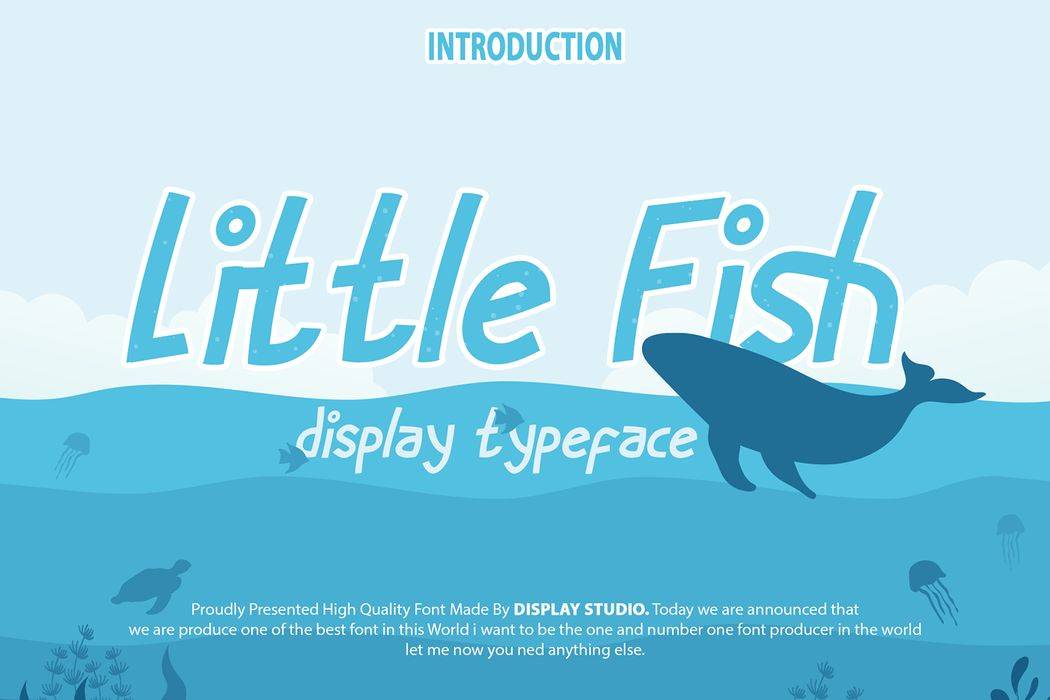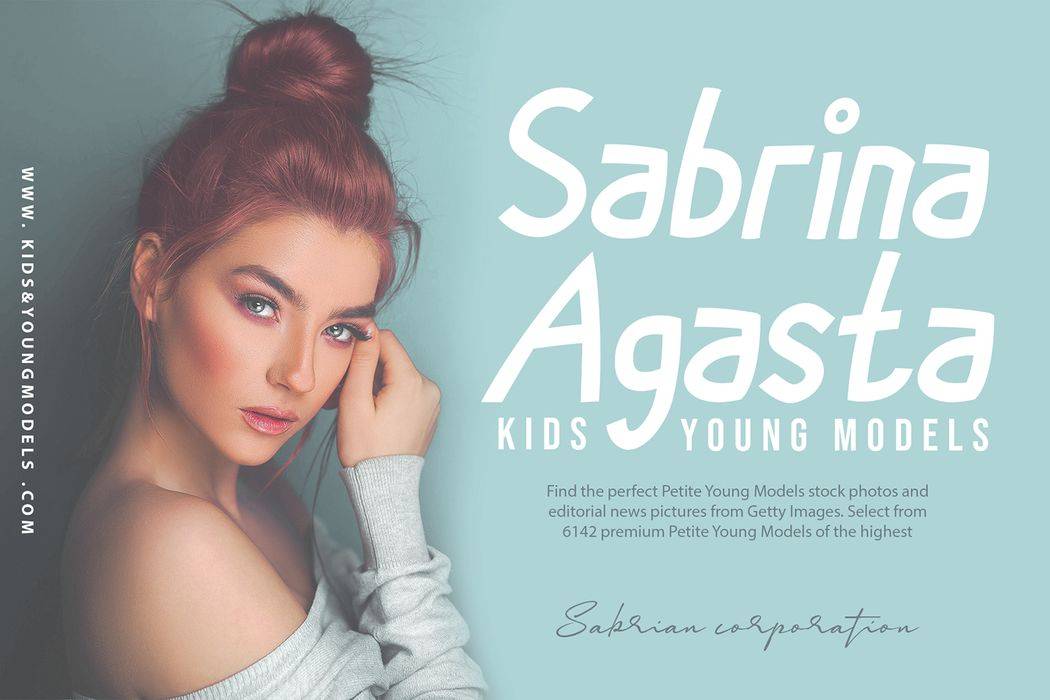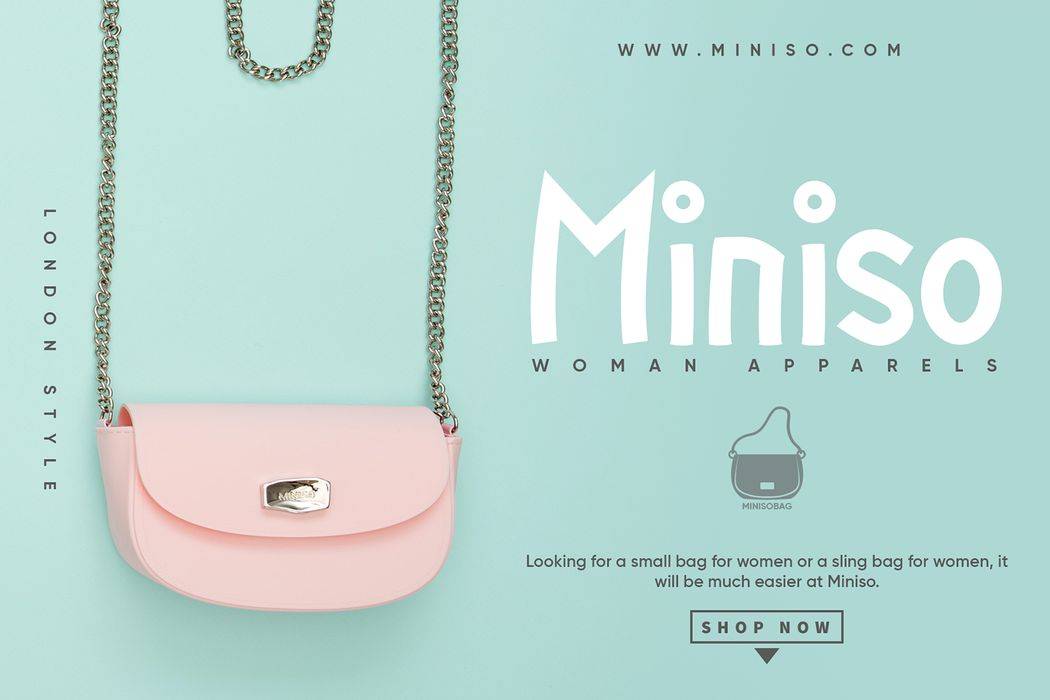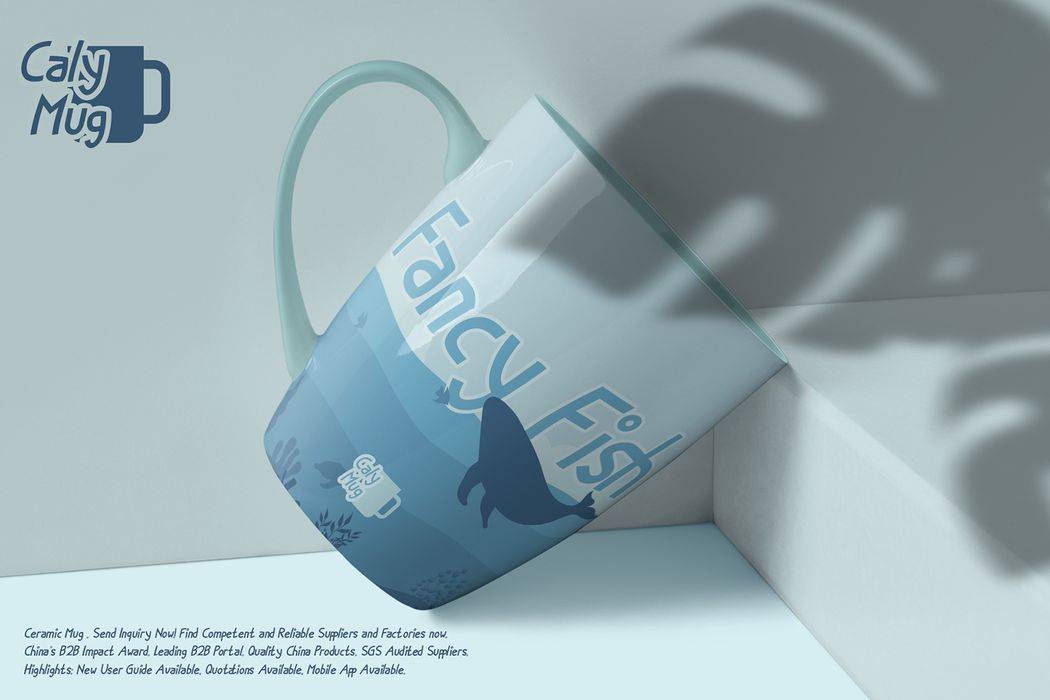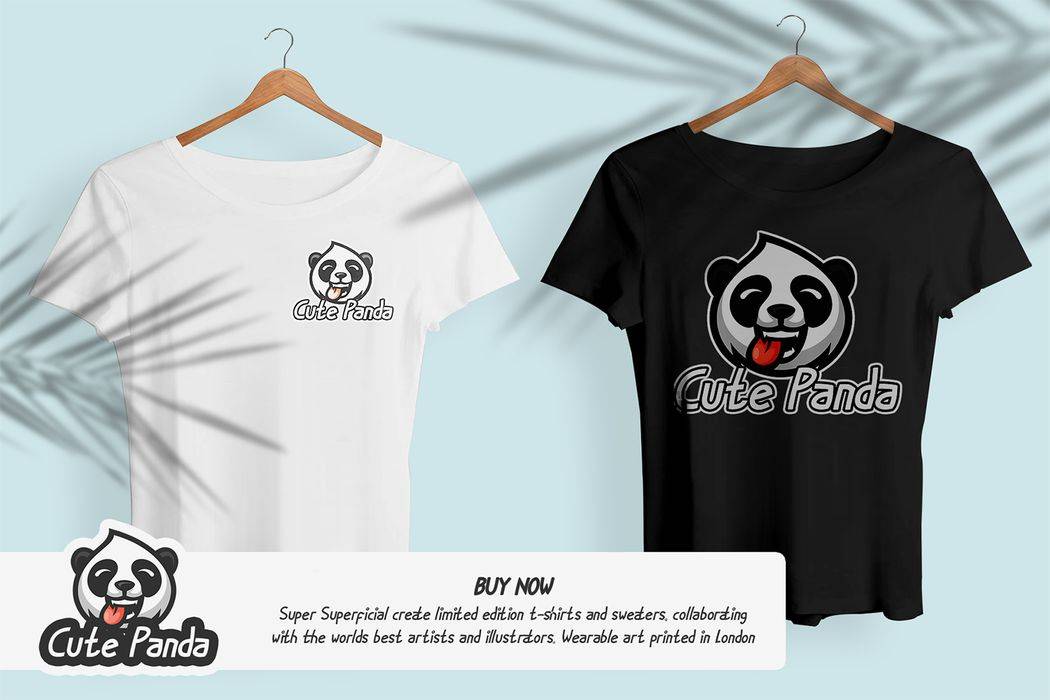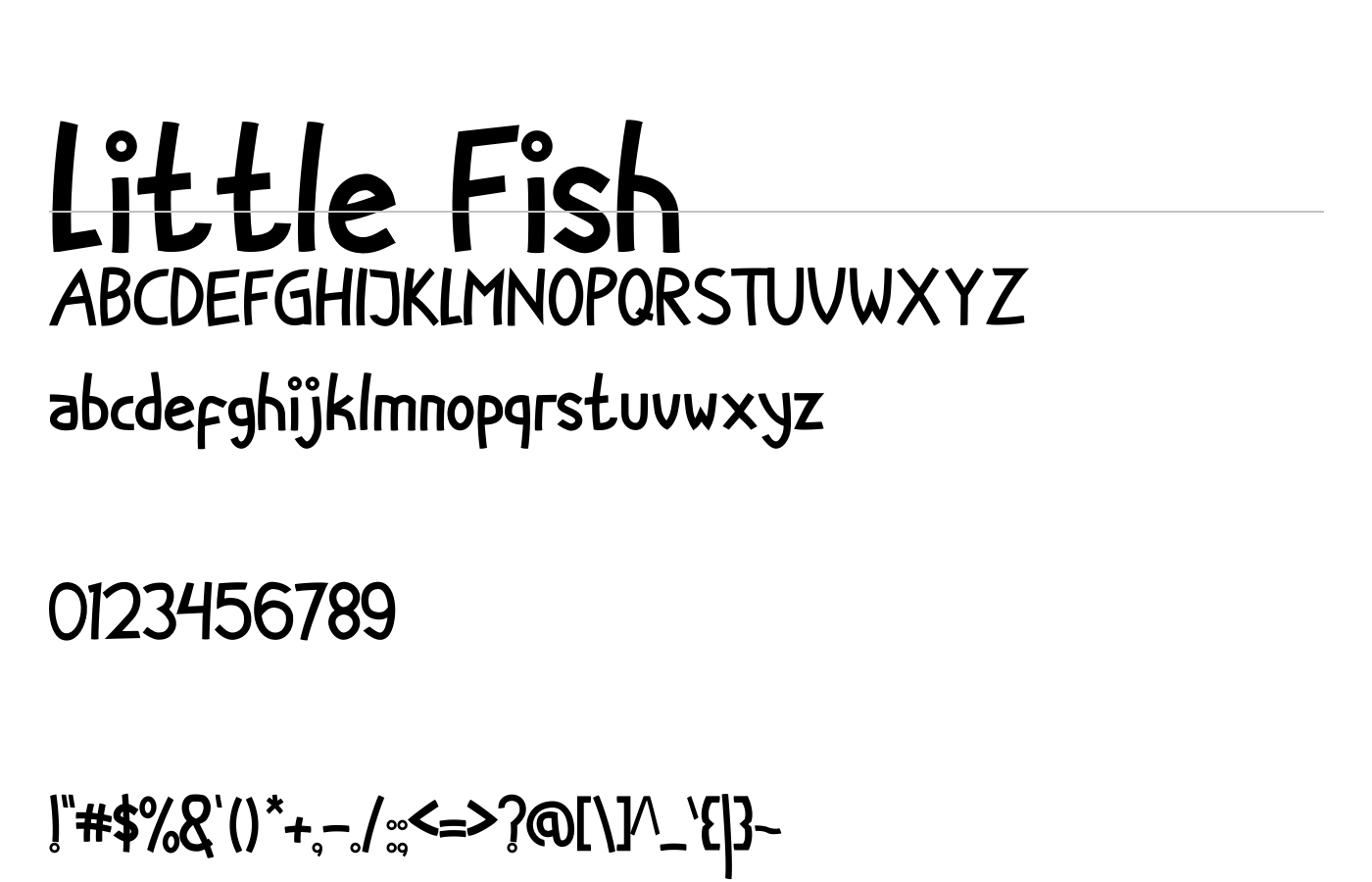
Little Fish is a playful and informal sans serif font with a slightly uneven, hand-drawn feel that gives it a friendly and approachable character. Its narrow width, moderate x-height, and quirky letterforms make it ideal for fun, casual designs such as children’s books, creative logos, and lighthearted posters. This font works well where a whimsical, personalized touch is needed to add charm and warmth.